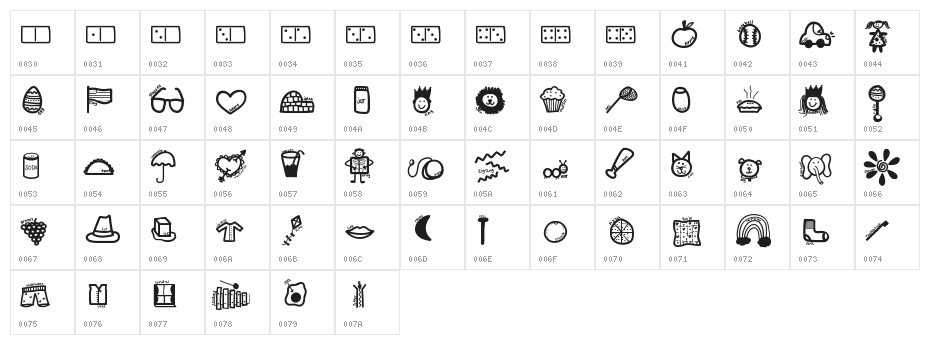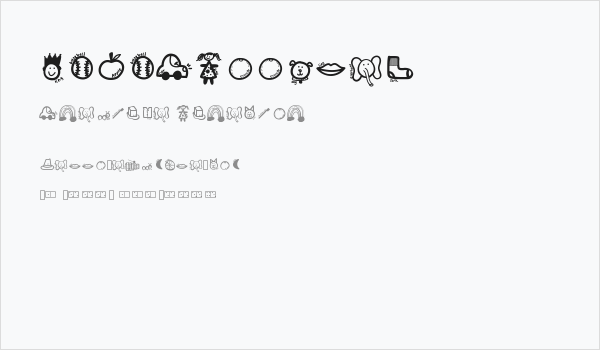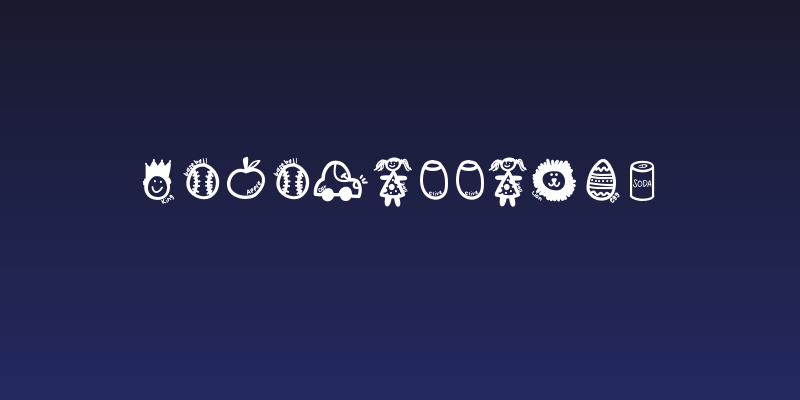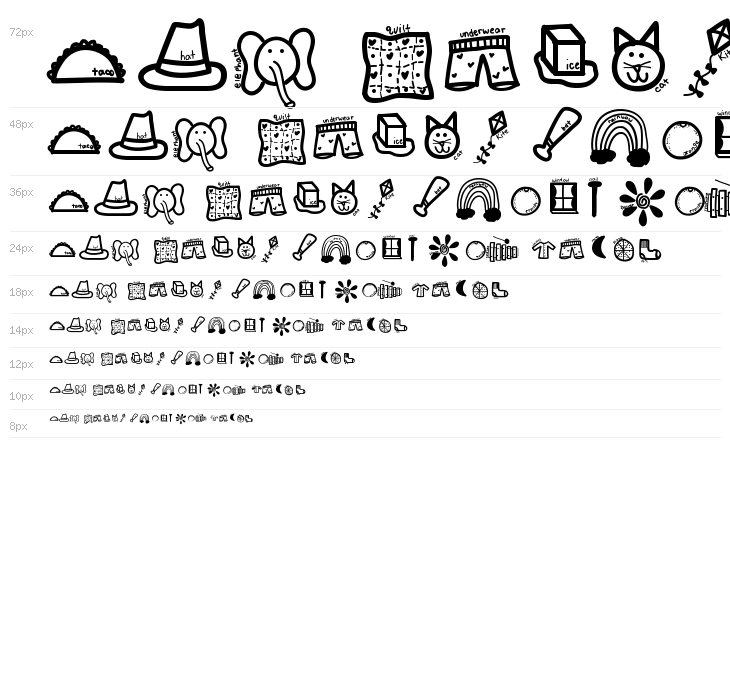
KBABCDoodles Font
KBABCDoodles Description
This collection features a playful and whimsical set of doodles, each representing a different object or concept. The designs are hand-drawn with a casual, childlike charm, incorporating elements like apples, baseballs, cars, and various animals. Each doodle is accompanied by a small label, adding a touch of educational value. The style is consistent throughout, with bold outlines and simple, recognizable shapes. This set is perfect for projects that require a fun and informal aesthetic, appealing to both children and adults who enjoy a lighthearted design approach.
| Use Case | Illustrations, Educational materials, Creative projects |
| Proposed Projects | Ideal for children's books, educational materials, playful branding, and creative crafts. |